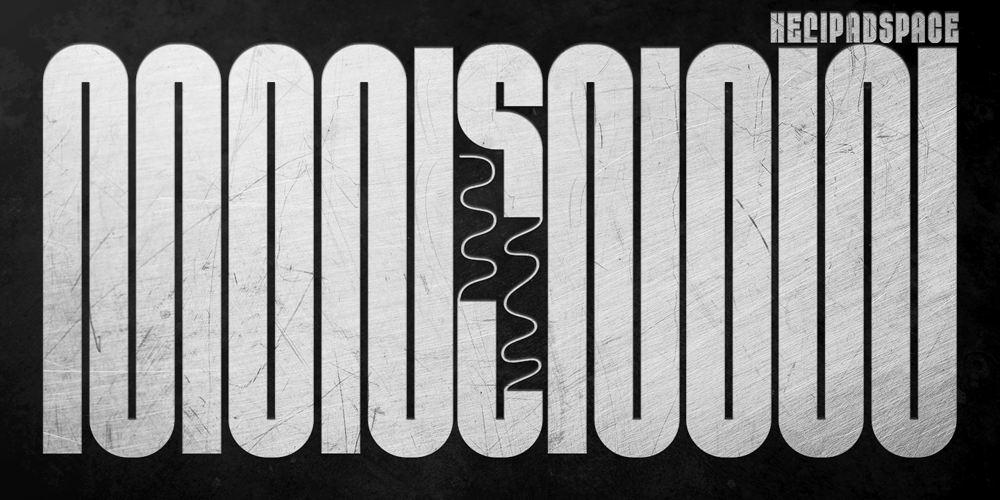
HS Monsnow Font Family was designed by Muh. Aswar, Novan Arisandi and published by Helipad Space. HS Monsnow contains 2 styles and family package options. Introducing, HS Monsnow! An Experimental Condensed Display Font with the unique touch. It looks authentic and stylish that can be used for all your project needs.This font can be used at any time and on any project.So, HS Monsnow Font can’t wait to give its touch to all your design projects such as magazine, movie, poster design, printing, personal branding, promotional materials, logotype, product packaging, etc.Thank YouHS